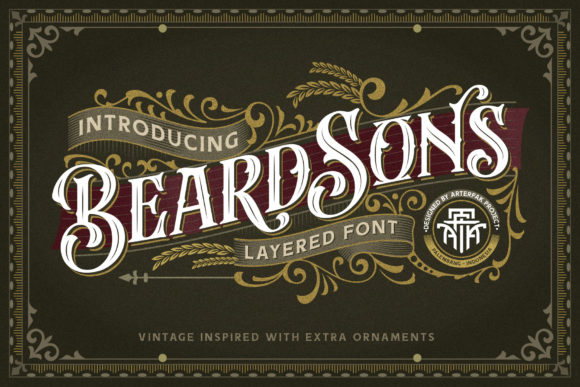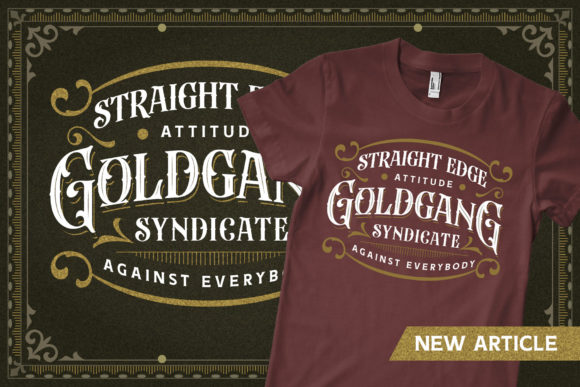
12 Best Blackletter Fonts for Gothic Branding and Vintage Design Projects
Introduction
Blackletter typography carries a powerful sense of heritage, authority, and dramatic elegance. In this guide to the 12 Best Blackletter Fonts for Gothic Branding and Vintage Design Projects, we explore typefaces that blend medieval influence with modern usability — perfect for designers seeking bold, historic character with contemporary impact.
From traditional Old English styles to refined Gothic interpretations and tattoo-inspired lettering, blackletter fonts offer distinctive strokes, sharp angles, and intricate details that instantly command attention. They are widely used in branding, apparel, album covers, book designs, barbershop logos, streetwear graphics, certificates, and luxury-themed projects.
Whether you’re building a heritage-inspired identity or creating a dramatic statement piece, the right blackletter font adds depth, authenticity, and timeless visual strength. This collection highlights typefaces that balance ornamental richness with practical readability — helping you craft designs that feel both powerful and unforgettable.
1. Beardsons Font
## What Makes Beardsons Font Stand Out
**Beardsons Font** stands out for its bold character and distinctive vintage personality. Designed with strong strokes and confident letterforms, this typeface delivers a powerful visual impact while maintaining readability and balance. Its structured yet expressive style makes it perfect for branding projects that require attitude, heritage, and authenticity.
The font blends classic influences with modern usability, allowing it to work seamlessly across logos, apparel designs, packaging, posters, barbershop branding, and masculine-themed projects. Beardsons carries a handcrafted feel that gives designs a sense of craftsmanship and tradition without appearing outdated.
Whether used for headlines or statement typography, Beardsons adds strength, presence, and character to your work. It’s ideal for designers who want a typeface that communicates confidence, bold identity, and timeless appeal in one cohesive design.
## What Makes Beardsons Font Stand Out
**Beardsons Font** stands out for its bold character and distinctive vintage personality. Designed with strong strokes and confident letterforms, this typeface delivers a powerful visual impact while maintaining readability and balance. Its structured yet expressive style makes it perfect for branding projects that require attitude, heritage, and authenticity.
The font blends classic influences with modern usability, allowing it to work seamlessly across logos, apparel designs, packaging, posters, barbershop branding, and masculine-themed projects. Beardsons carries a handcrafted feel that gives designs a sense of craftsmanship and tradition without appearing outdated.
Whether used for headlines or statement typography, Beardsons adds strength, presence, and character to your work. It’s ideal for designers who want a typeface that communicates confidence, bold identity, and timeless appeal in one cohesive design.
What Makes Beardsons Font Stand Out
Beardsons Font stands out for its bold character and distinctive vintage personality. Designed with strong strokes and confident letterforms, this typeface delivers a powerful visual impact while maintaining readability and balance. Its structured yet expressive style makes it perfect for branding projects that require attitude, heritage, and authenticity.
The font blends classic influences with modern usability, allowing it to work seamlessly across logos, apparel designs, packaging, posters, barbershop branding, and masculine-themed projects. Beardsons carries a handcrafted feel that gives designs a sense of craftsmanship and tradition without appearing outdated.